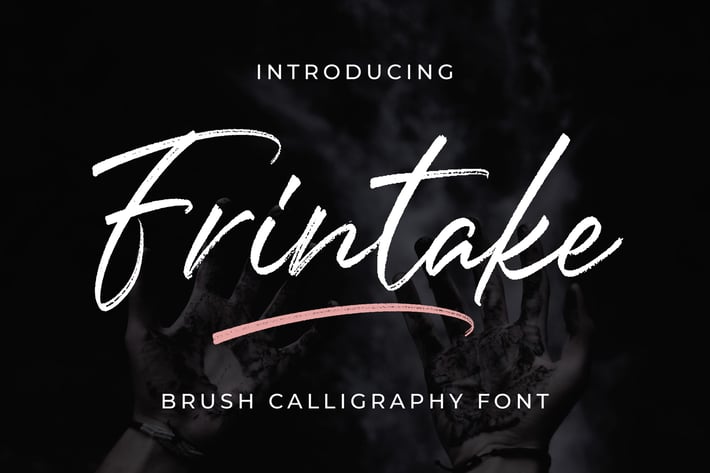
Frintake - Brush Calligraphy Font
Introducing of our new product the name is Frintake Brush Calligraphy Font. Frintake inspired by Brush calligraphy this font is a fun theme very good for signature, poster, fashion, wedding, branding etc
MULTILINGUAL ACCENT :
ŽžŠŒšŸÀÁÂÃÄÅÆÇÈÉÊËÌÍÎÏÐŁÑÒÓÔÕÖØÙÚÛÜÝßàáâãäåæçèéêëìíîïłñòóôõöøùúûüýÿ